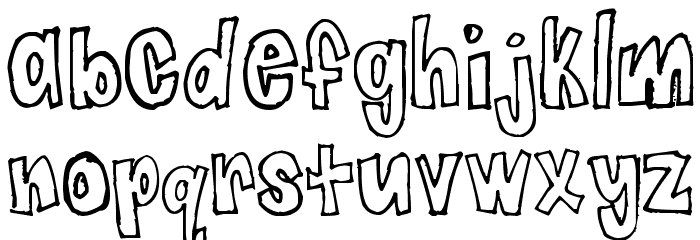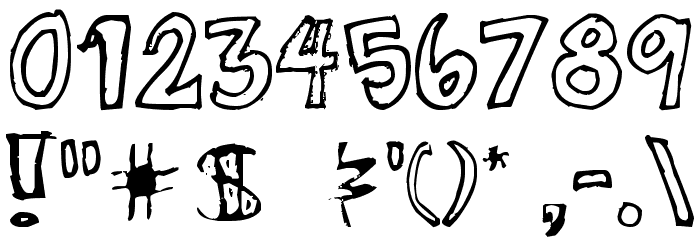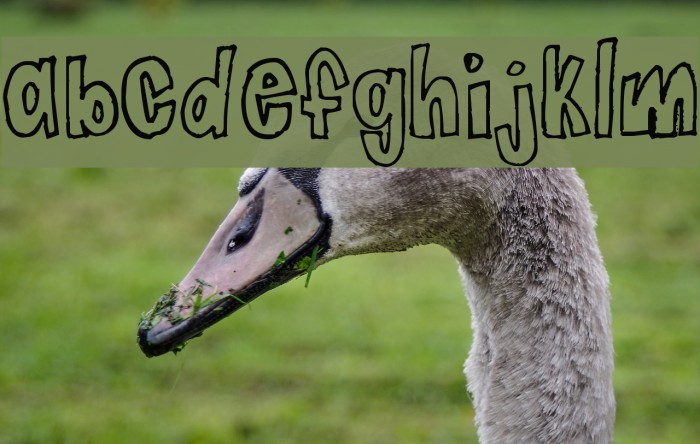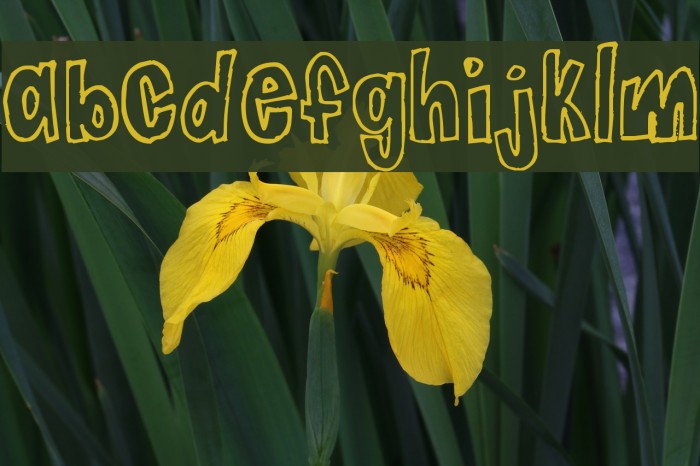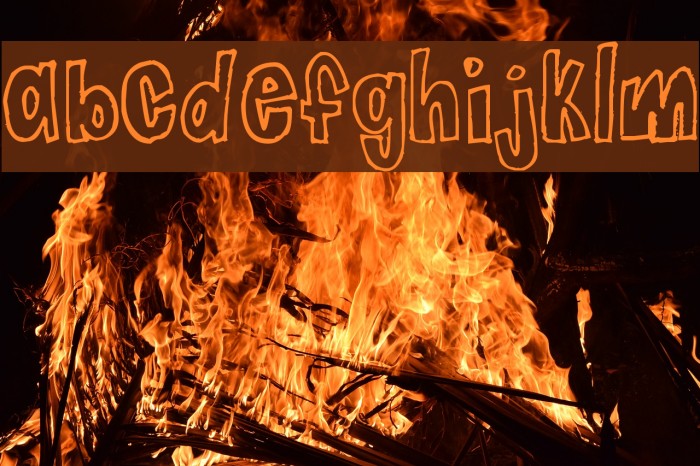
Jaggy Fries Font
This font features a playful and jagged design, with each character appearing as if it has been hand-drawn with a rough, textured edge. The letters are bold and slightly irregular, giving them a whimsical and informal appearance. The uppercase and lowercase letters maintain a consistent style, with exaggerated curves and angles that add to the font's quirky charm. Numbers and special characters follow the same design principles, ensuring a cohesive look across all elements. The font's unique style makes it stand out, perfect for projects that require a fun and eye-catching typeface.
A playful, jagged, hand-drawn font with bold, irregular characters.
- Proposed Projects: Ideal for children's books, comic strips, playful branding, and creative posters.
- Overall Style: Whimsical